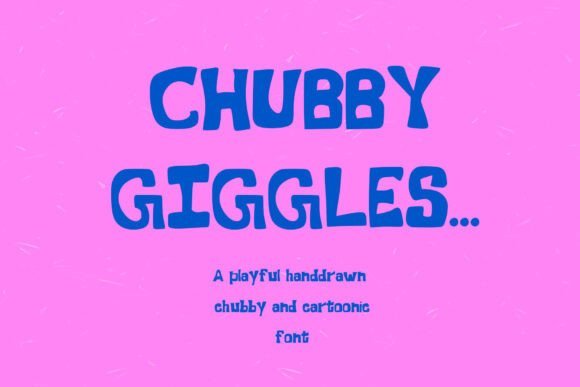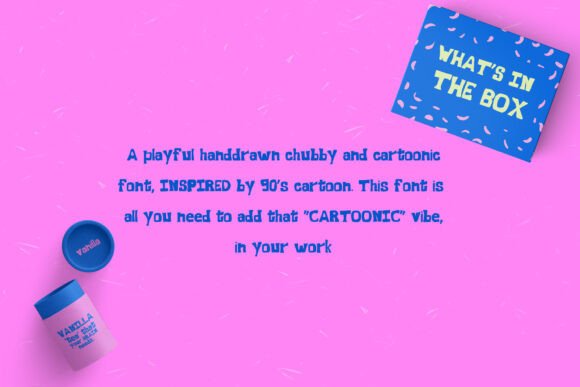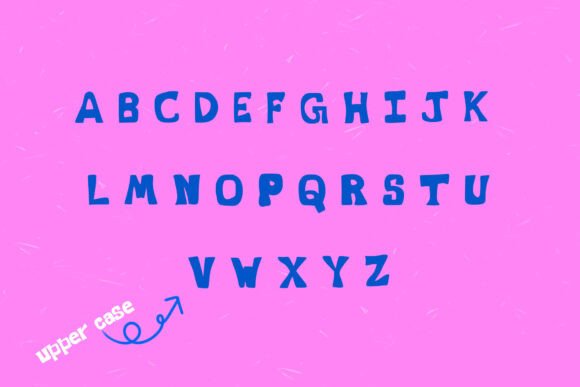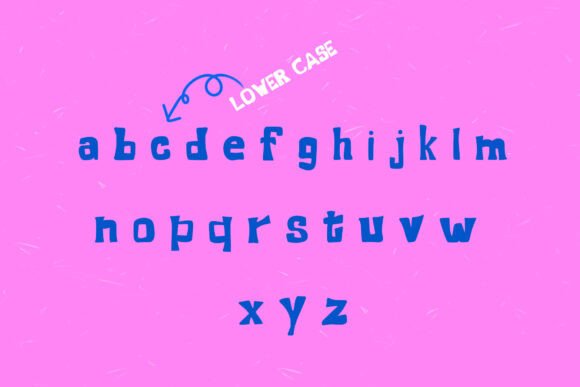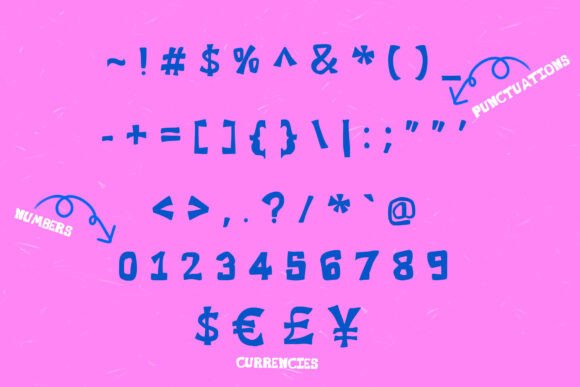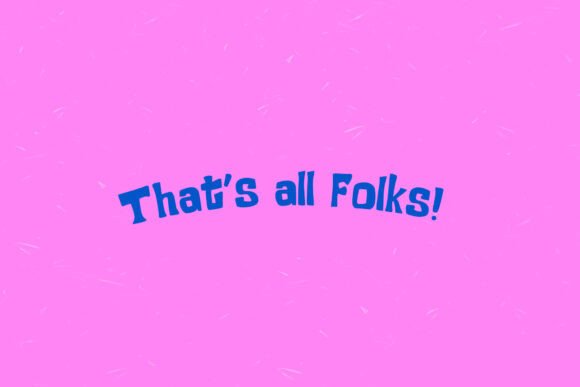
Adding a Dose of Whimsy to Your Design
Have you ever been working on a project, and suddenly, the perfect font pops into your head? For designers, it’s that magical moment when the creative wheels start turning, and a project begins to take shape. For me, it was the Chubby Giggles Font that brought a smile to my face and a spring to my step. This playful, hand-drawn font is inspired by the classic cartoons of the 90’s, and it’s the perfect addition to any project that needs a dash of fun.
Whether you’re designing a kids’ book, creating birthday invites, or crafting comic-style graphics, the Chubby Giggles Font is a valuable asset to have in your design toolkit. Its chunky, cartoon-like letters are guaranteed to bring a cheerful vibe to any project, making it a must-have for designers looking to add a little whimsy to their work.
Key Features of Chubby Giggles Font
- Font Family: Chubby Giggles is a playful, handwritten font family designed for various creative projects.
- Unique Characteristics: Chubby Giggles features a distinctive, childlike charm with irregular letterforms and playful flourishes, making it perfect for adding a whimsical touch to designs.
Chubby Giggles Font Review
At first glance, the Chubby Giggles font is an adorable, playful choice for any project that needs a whimsical touch. ✨ The rounded edges and childlike charm of the font make it perfect for children’s books, nursery rhymes, or any other project that requires a lighthearted atmosphere.
- ✨ Unique and fun design: The Chubby Giggles font is unlike any other font I’ve seen, making it a great choice for designers who want to stand out.
- ✨ Highly legible: Despite its playful nature, the font is surprisingly easy to read, making it a great choice for body text.
- ✨ Perfect for children’s projects: As I mentioned earlier, the font’s childlike charm makes it perfect for projects targeting young audiences.
However, there are some limitations to consider. ⚠️ The font is only available in a limited number of weights, which may limit its versatility. Additionally, the font’s rounded edges may not be suitable for projects that require a more formal or professional tone.
Overall, I think the Chubby Giggles font is a great choice for designers who want to add a playful touch to their projects. While it may not be suitable for every project, it’s a great option for those who want to stand out and have a little fun with their design.
The “Chubby Giggles Font” is perfect for creating playful and whimsical designs. To get the most out of it, try using it in combination with bold colors and playful graphics.
The “Chubby Giggles Font” is commonly used for:
- Children’s party invitations
- Wedding stationery
- Food labels and packaging
- Marketing materials for toy and game